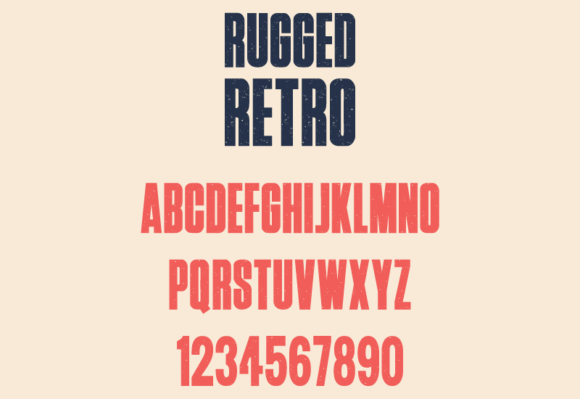
Rugged Retro Font
Experience the allure of singularity with our ‘Rugged Retro’ sans-serif typeface. Famous for its cutting-edge and one-of-a-kind design, Rugged Retro emerges as more than just a choice of text style. Each hard, unrefined stroke is overlaid with a weathered texture, fostering an atmosphere steeped in tenacity and defiance.
With its bold straightforwardness and maverick spirit, Rugged Retro offers precise textural enhancement for designs that revel in audacity. From edgy poster illustrations and brave album artworks to remarkable urban clothing branding, Rugged Retro is engineered to encapsulate the true essence of rebellion.